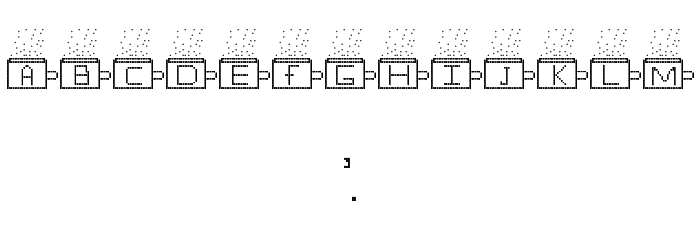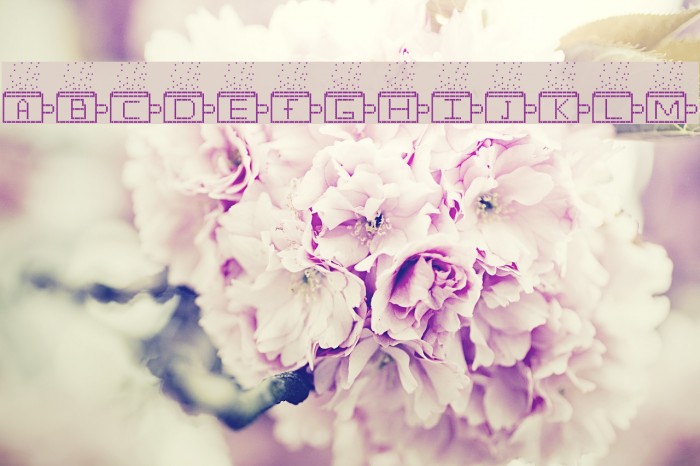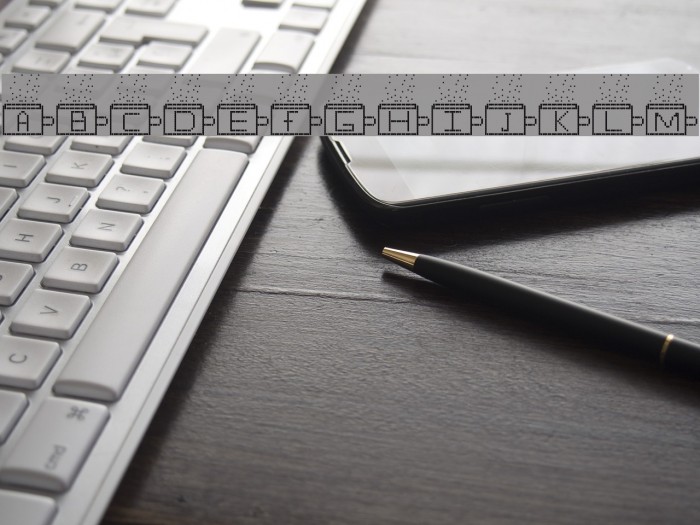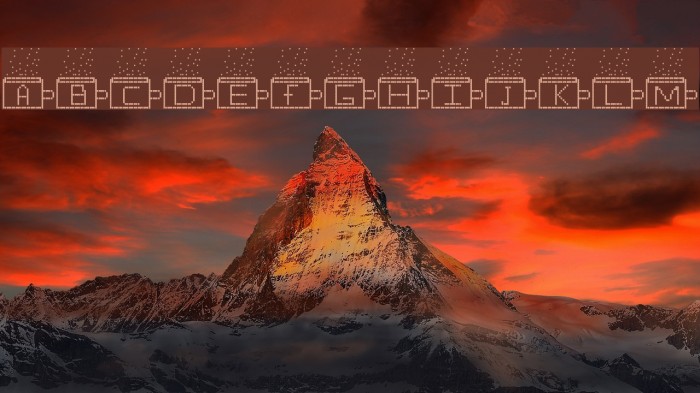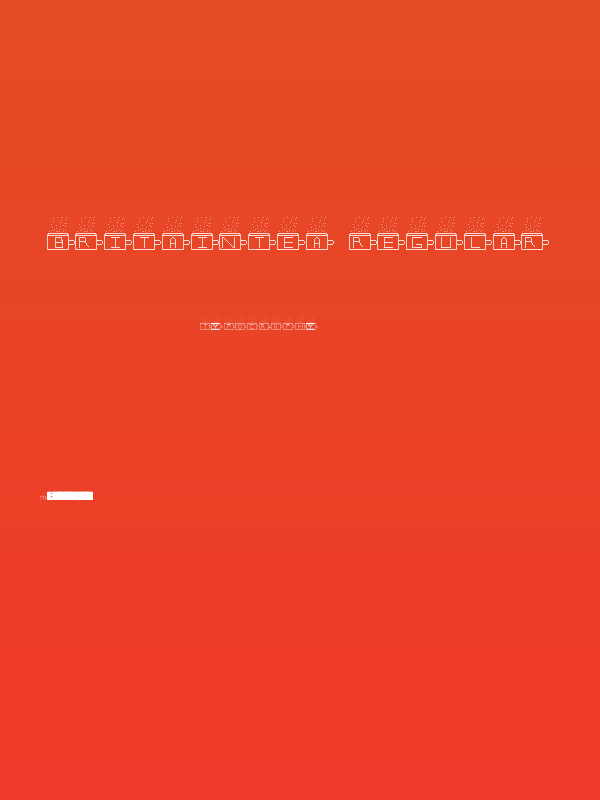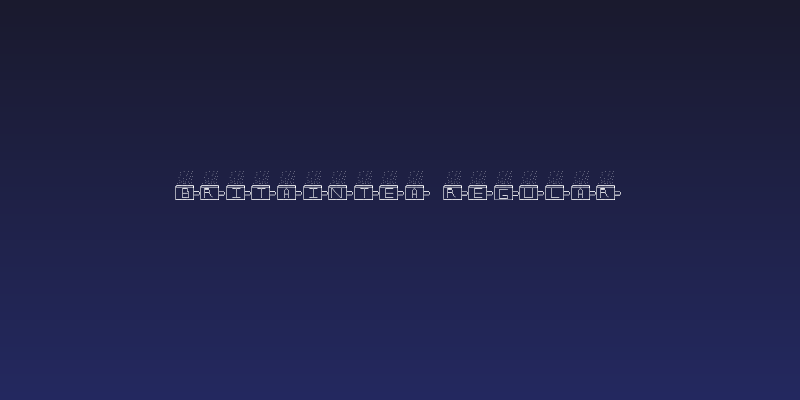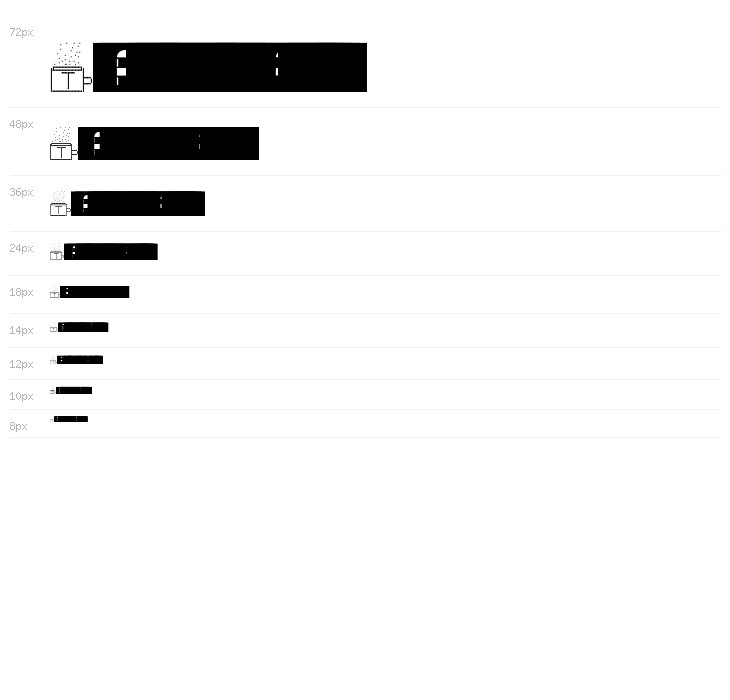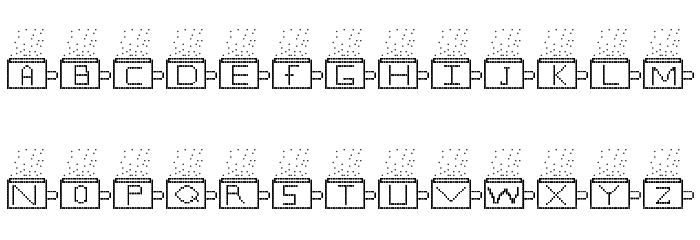
BritainTea Regular Font
BritainTea Regular Description
This font features a unique and playful design where each character is enclosed within a teapot shape, complete with a handle and spout. The letters are uppercase and lowercase, with a consistent geometric style that adds a whimsical touch. The dotted steam rising from each teapot adds an extra layer of charm and creativity. The font maintains a uniform structure, making it visually appealing and easy to read despite its decorative elements. The overall design is both fun and functional, suitable for a variety of creative projects.
| Proposed Projects | Ideal for tea-themed events, children's book covers, playful branding, and creative packaging designs. |